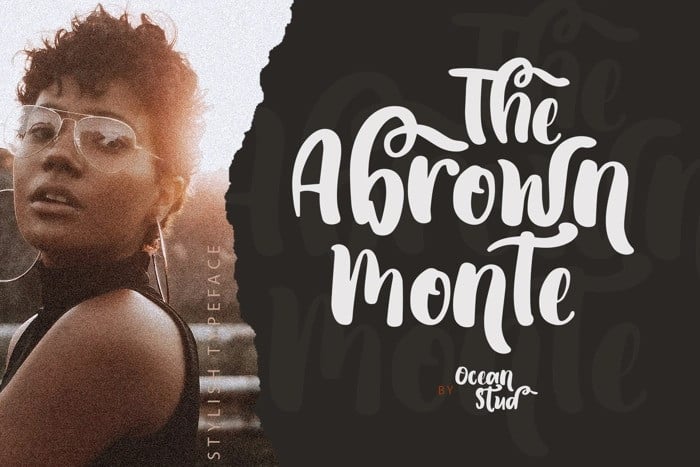
The Abrown Monte Script Font contains a lowercase, uppercase, symbol, and also supports multi-language. It’s a elegant hand-drawn font manufactured by The Ocean Studio. It brings a beautiful and attractive typeface. Made for any professional project branding. It is the best for logos, branding, wedding and quotes.